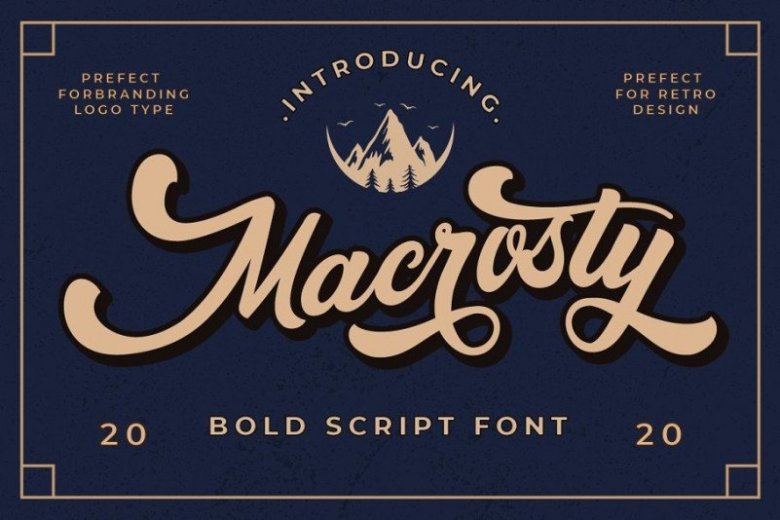
Macrosty Script Font
Introducing, Macrosty Script Font– a bold script which is purposely made for logotype. Made from font designer named PutraCetol Studio. The classic feel is really perfect for you who needs a typeface for retro / vintage theme. This font is comes in uppercase, lowercase, punctuations, symbols & numerals, alternate, etc. Also support multilingual and already PUA encoded.
Macrosty is perfect for logotype, apparel, invitation, magazines, branding, packaging, advertising, fashion, make up, stationery, novels, labels or anything.